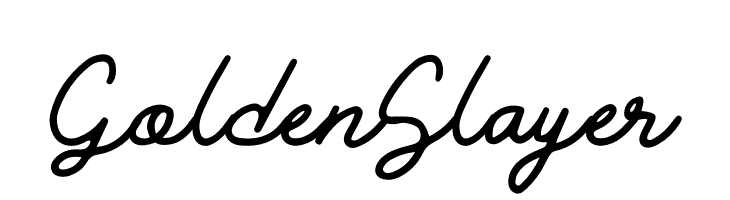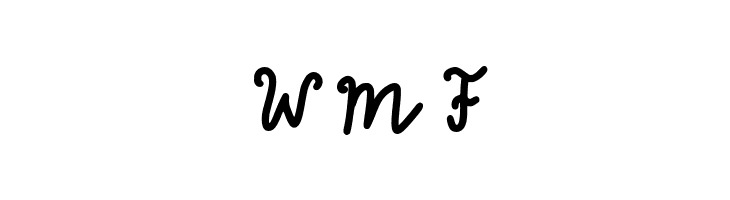
A playful, hand-drawn style font with rounded edges and consistent stroke thickness.
A bold, geometric font with spiked accents and a modern, digital aesthetic.
A bold, italicized font with a modern, dynamic style.
An abstract, artistic font with bold, sweeping strokes and unique character forms.
A dynamic and elegant italic font with smooth, flowing curves and slightly condensed letterforms.
A modern, outlined font with a playful and bold style.
An artistic script font with flowing, interconnected letterforms and high contrast.
A bold, 3D block-style font with sharp, geometric outlines.
A lively and elegant script font with flowing, interconnected letterforms.
A bold, hand-painted style font with an expressive and dynamic appearance.